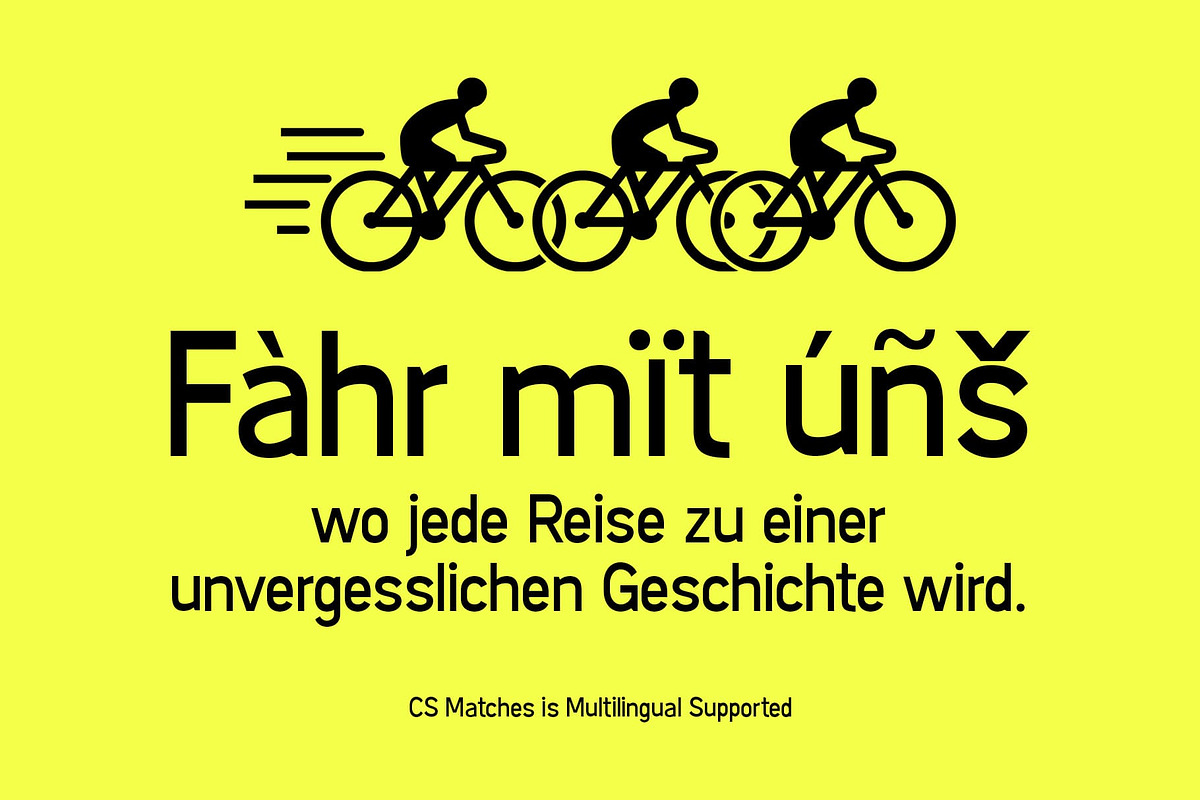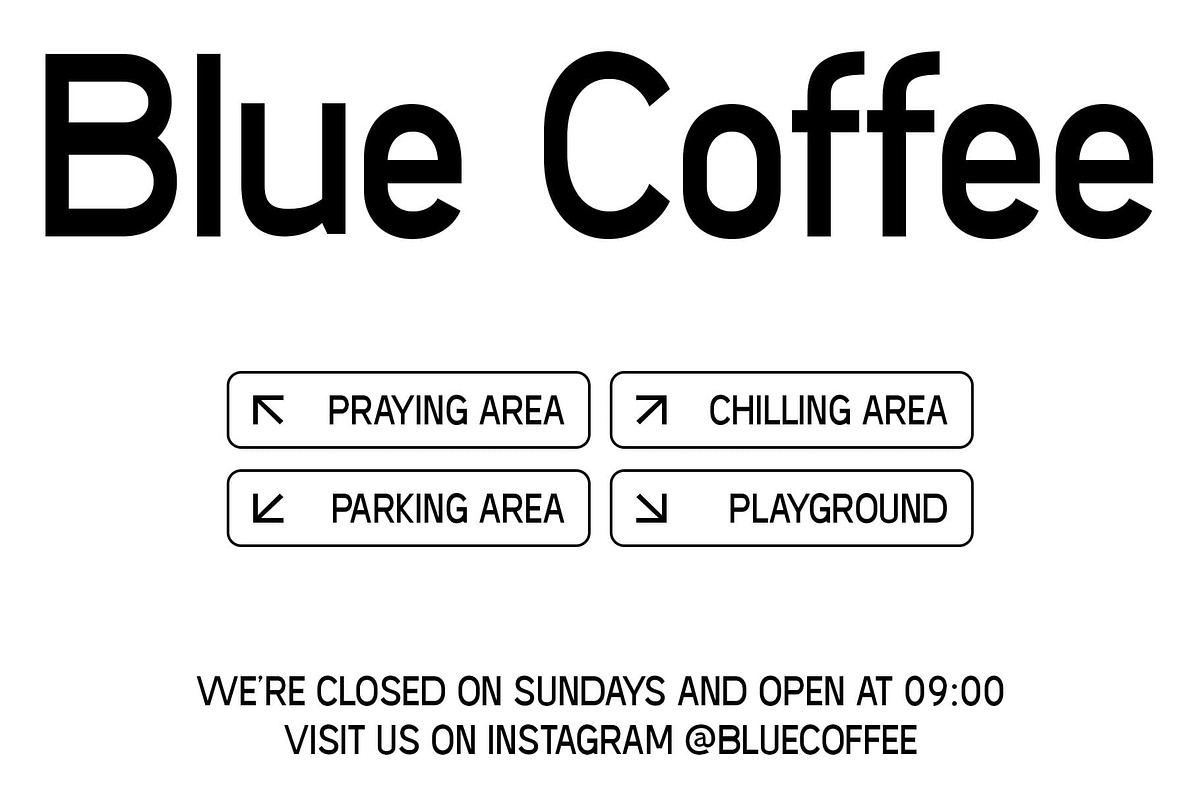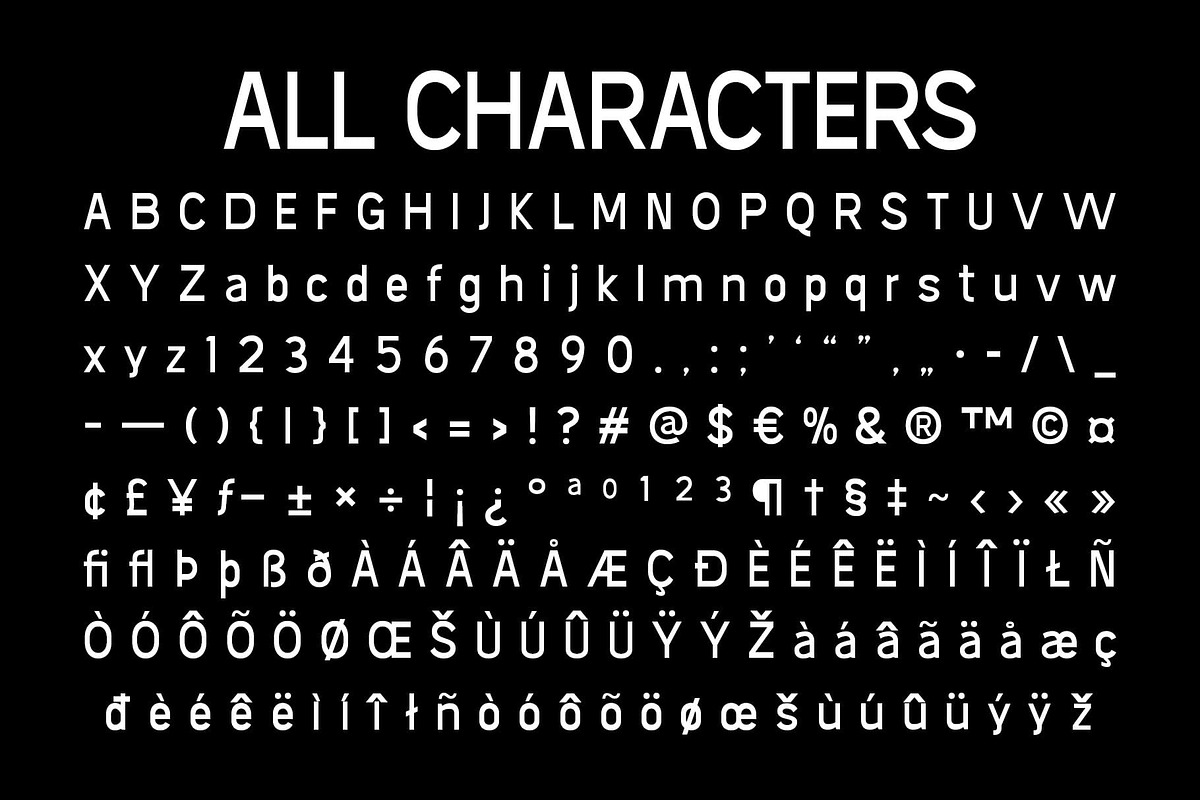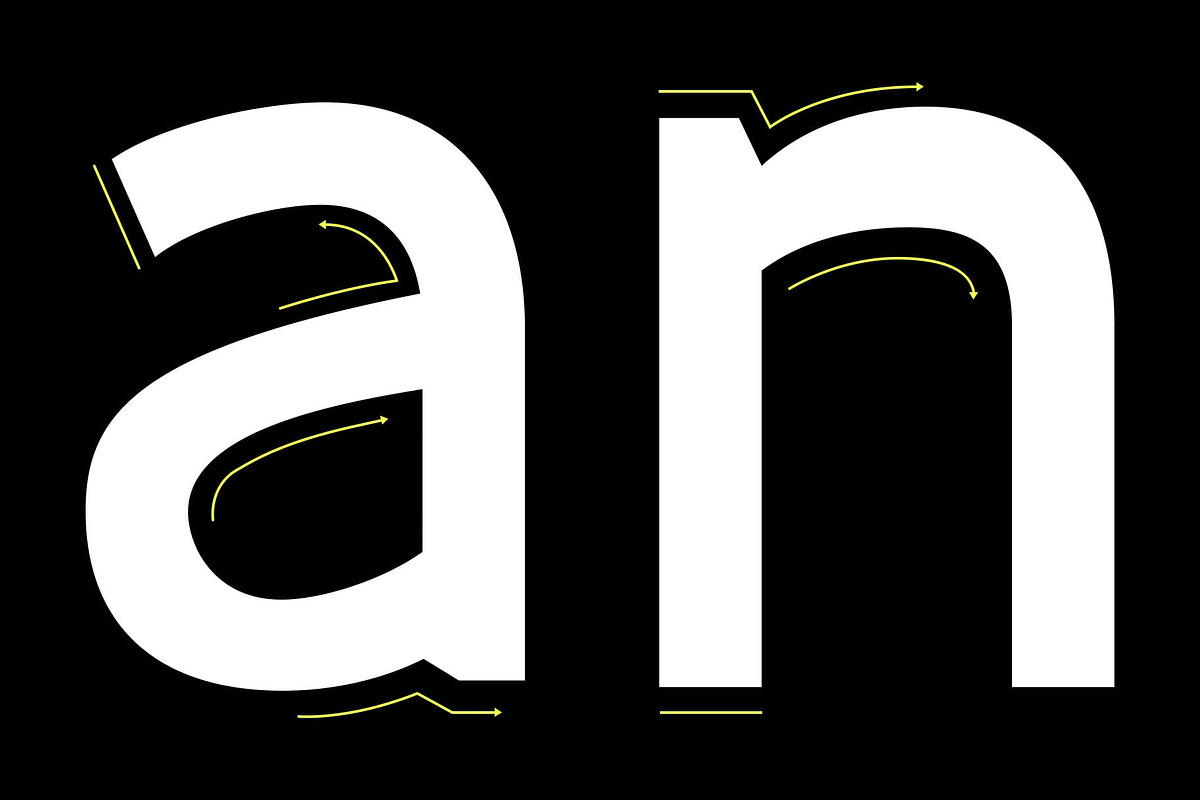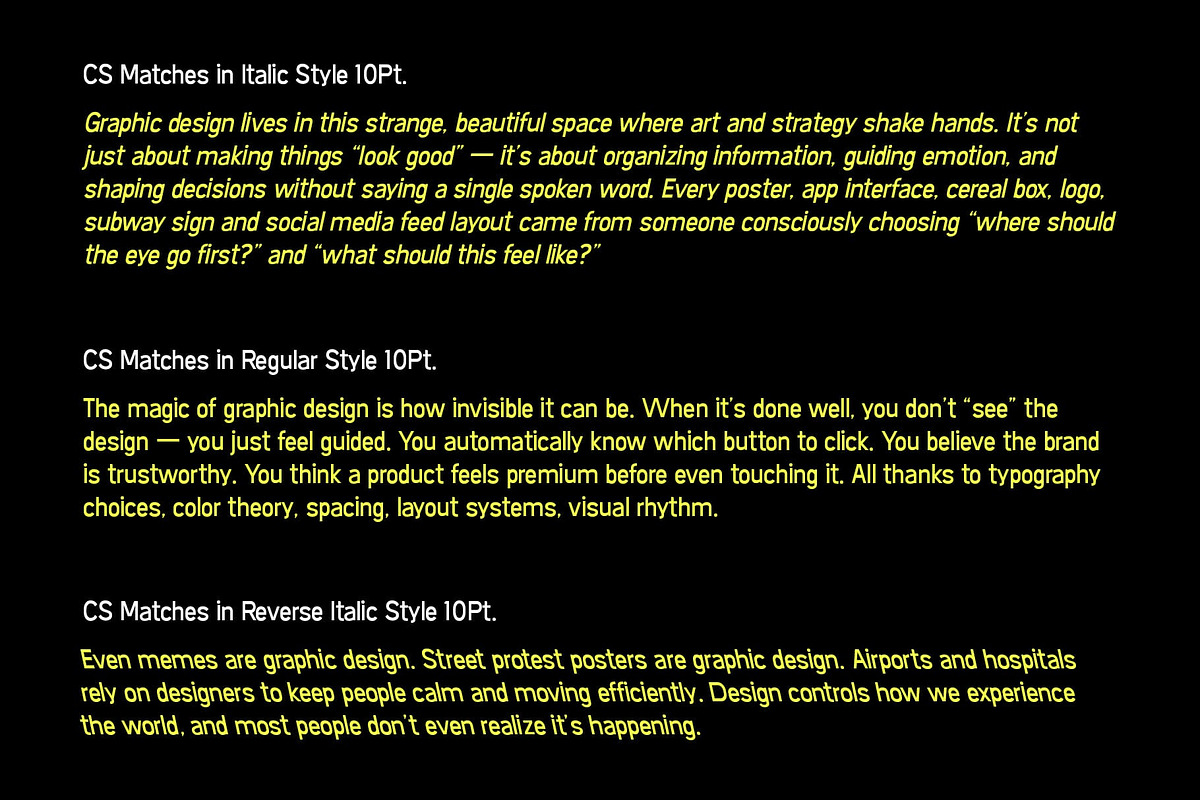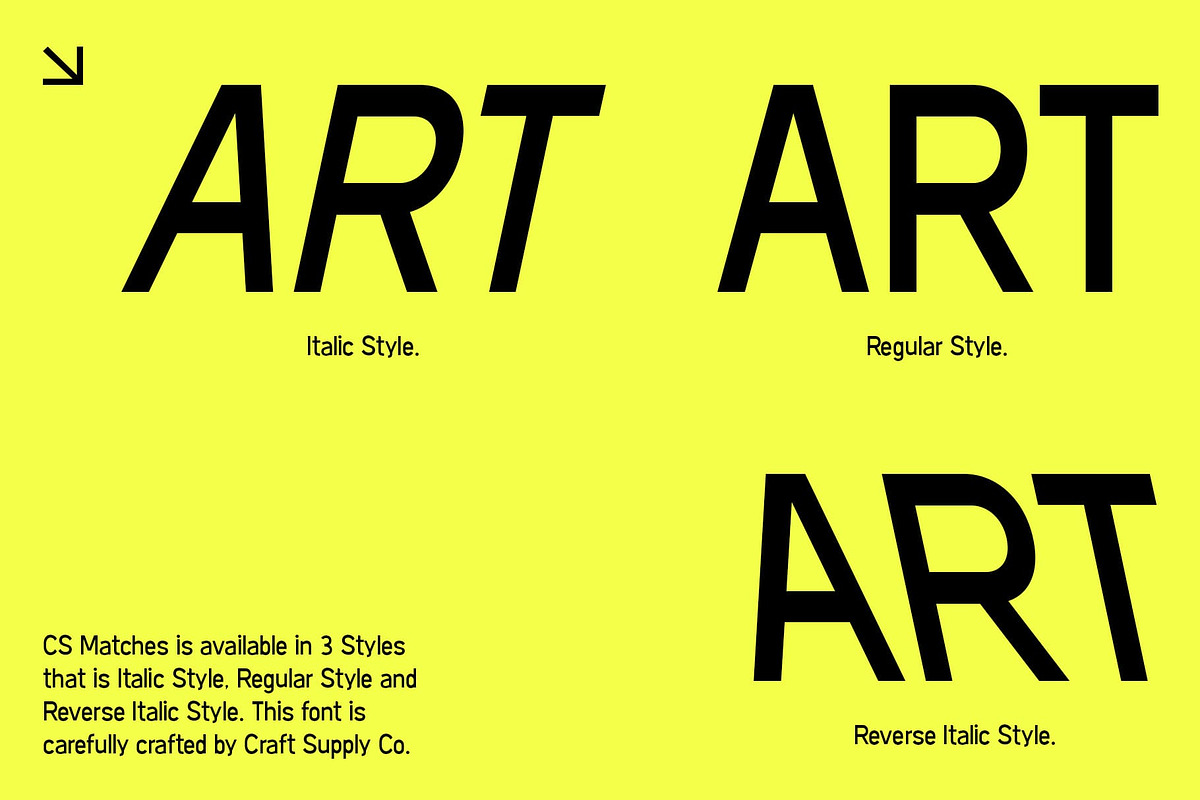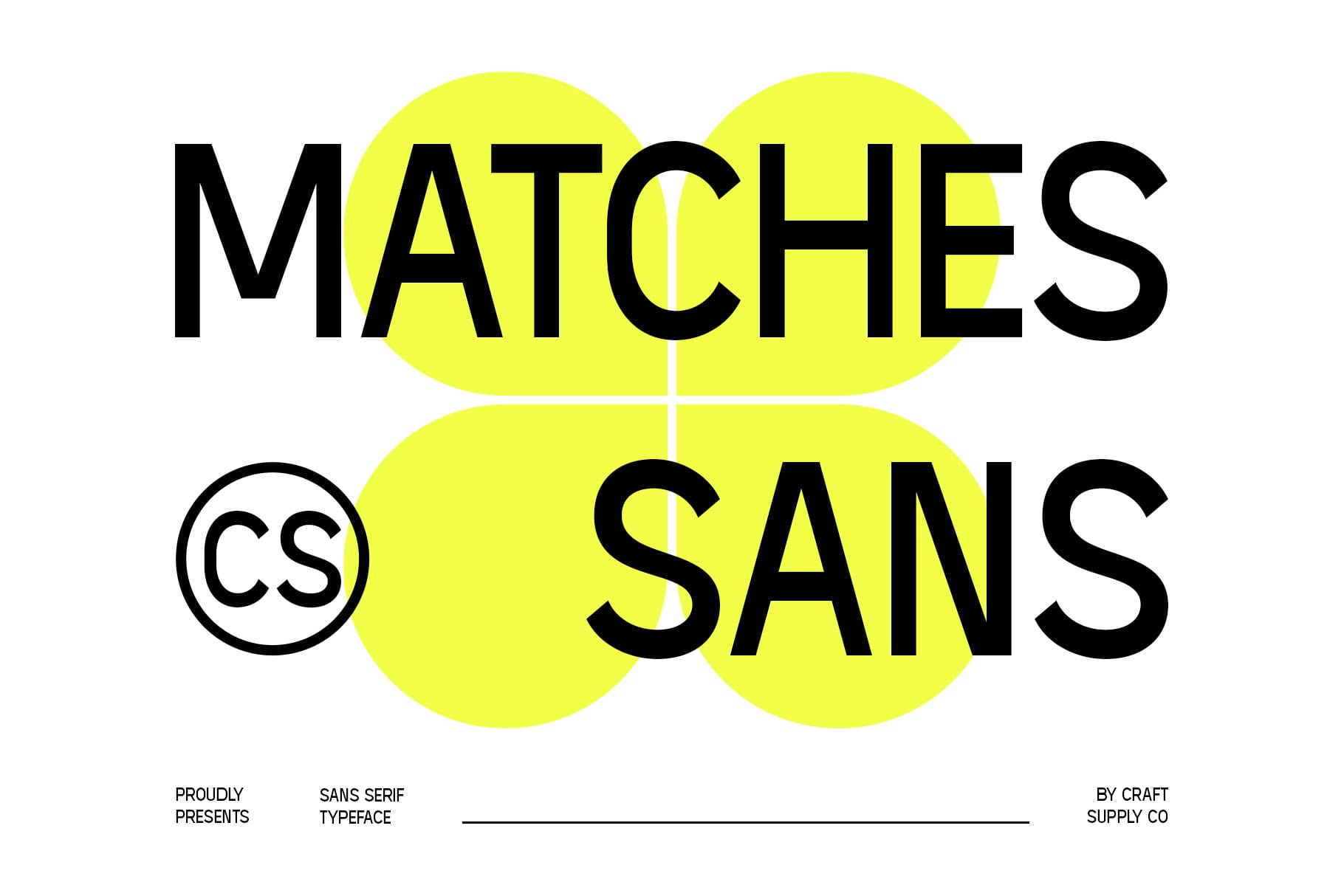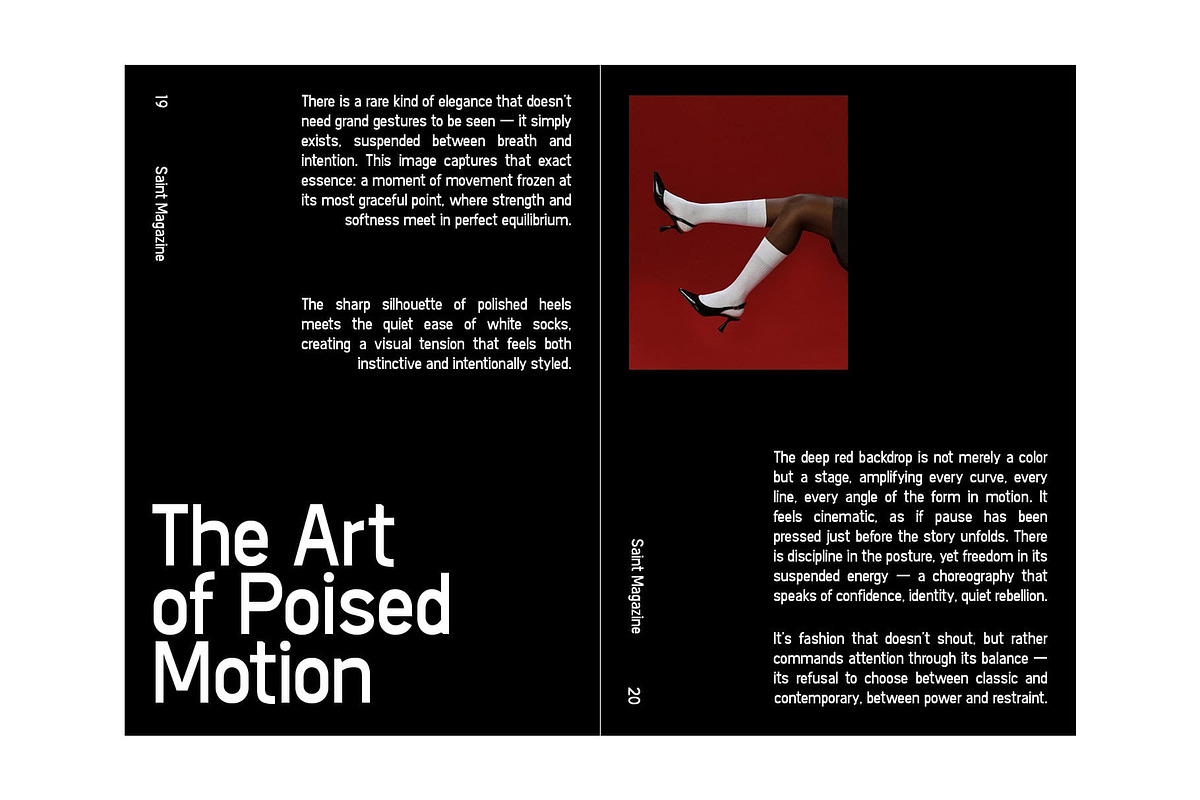
CS Matches – Sans Serif Typeface
CS Matches – Sleek Modernity with Professional Precision
Modern Sans Serif with Sharp Elegance This is a sans serif font designed with slim strokes and sharp cornered lines. Its clean structure exudes professionalism while maintaining a sleek, modern aesthetic, making it ideal for projects that demand clarity and style.
Slim and Structured Design The slightly slender forms and precise angles give this font a refined, polished look. Its geometric yet approachable design ensures readability while adding a subtle digital edge, perfect for modern editorial and branding contexts.
Strong and Professional Visual Presence This font combines clarity with sophistication, offering a professional tone without feeling rigid. The sharp, clean lines make it highly versatile, suitable for both large headlines and detailed digital layouts.
Perfect for Editorials, Branding, and Digital Projects From digital interfaces and corporate branding to editorial layouts, this font balances modern style with practical readability. Its sleek, contemporary structure ensures every project communicates strength, professionalism, and modern clarity.
- CS Matches Regular
- CS Matches Italic
- CS Matches Reverse Italic